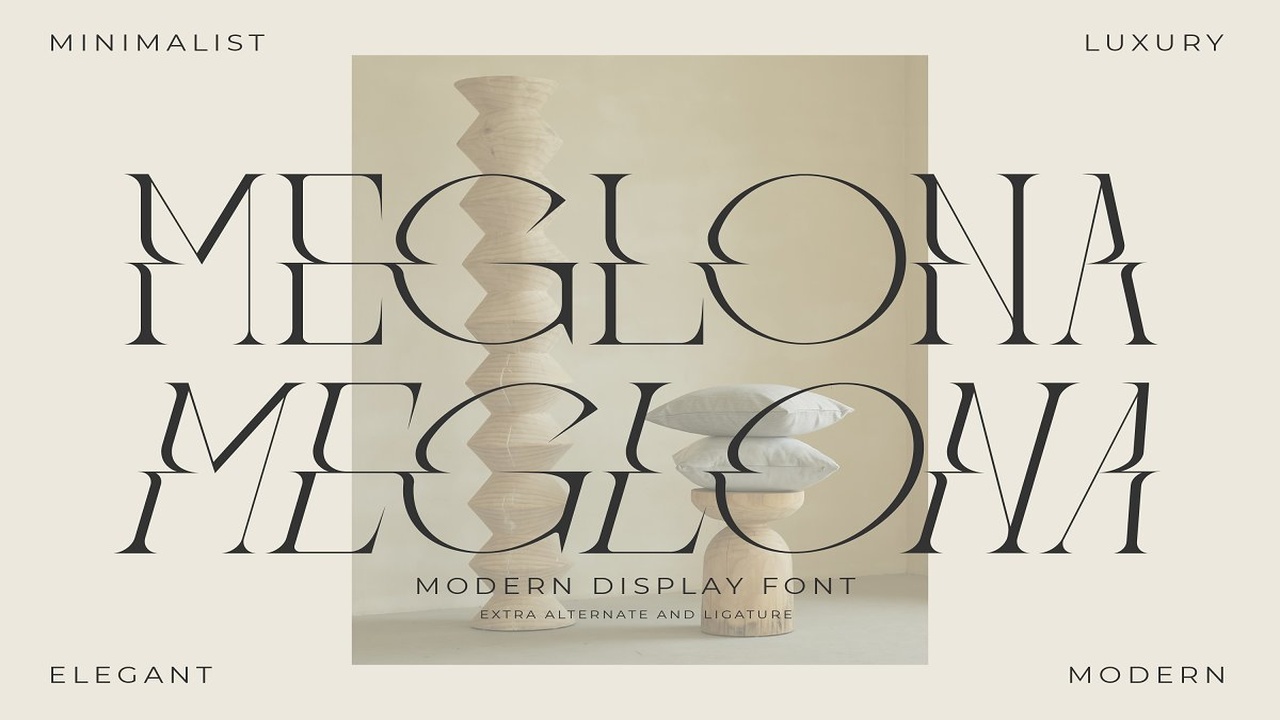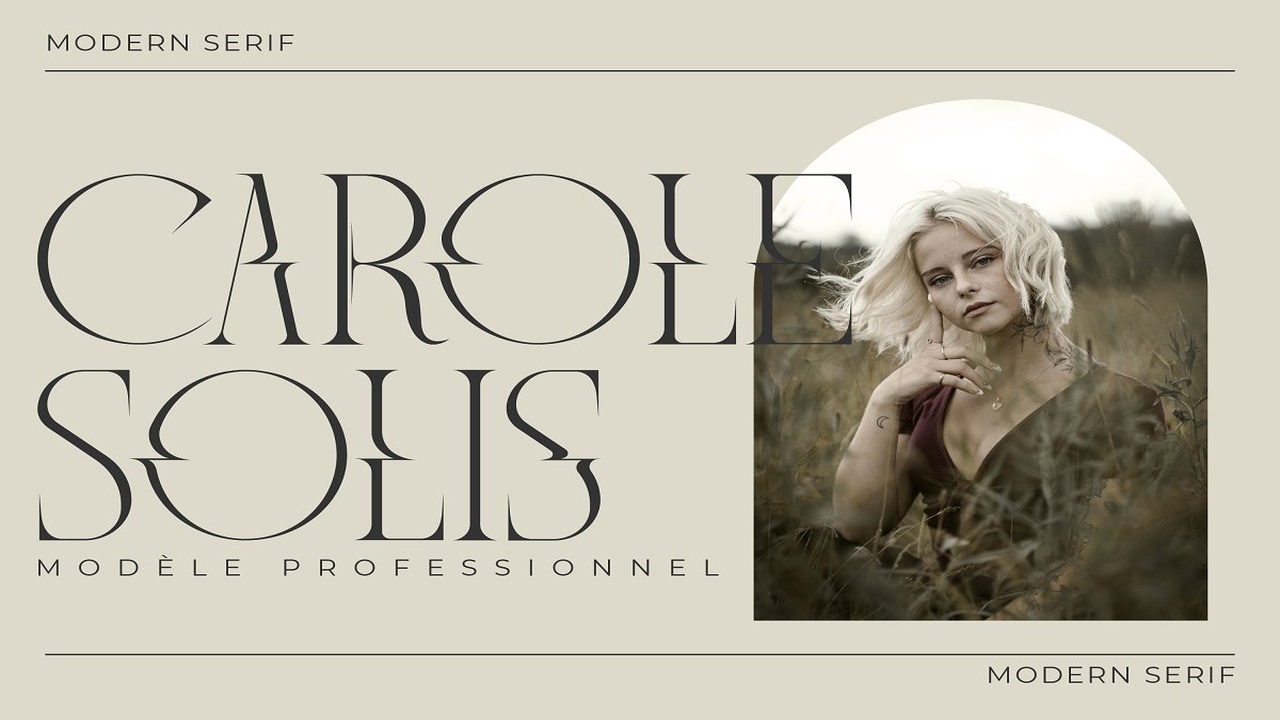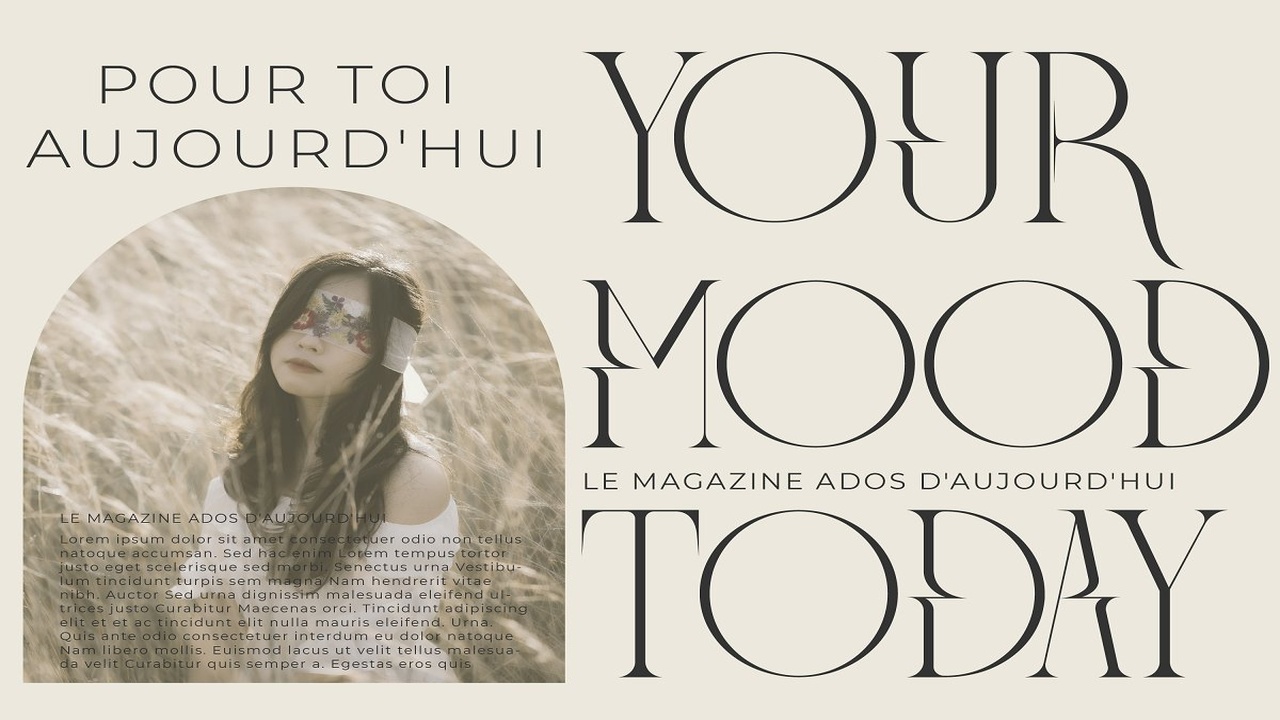
About the Meglona Modern and Stylish Serif Font
Mega Bundle From Storytype Studio!-100+ Modern And Minimalist Serif Font Bundle : https://crmrkt, com/rGgRz0-50+ Modern And Minimalist Serif Font Bundle : https://crmrkt, com/RNmdOdProudly present Meglona Typeface, created by Storytype,A serif modern and classic typeface that has own unique style & modern look, This typeface is perfect for an elegant & luxury logo, book or movie title design, fashion brand,magazine, clothes, lettering, quotes, and so much more